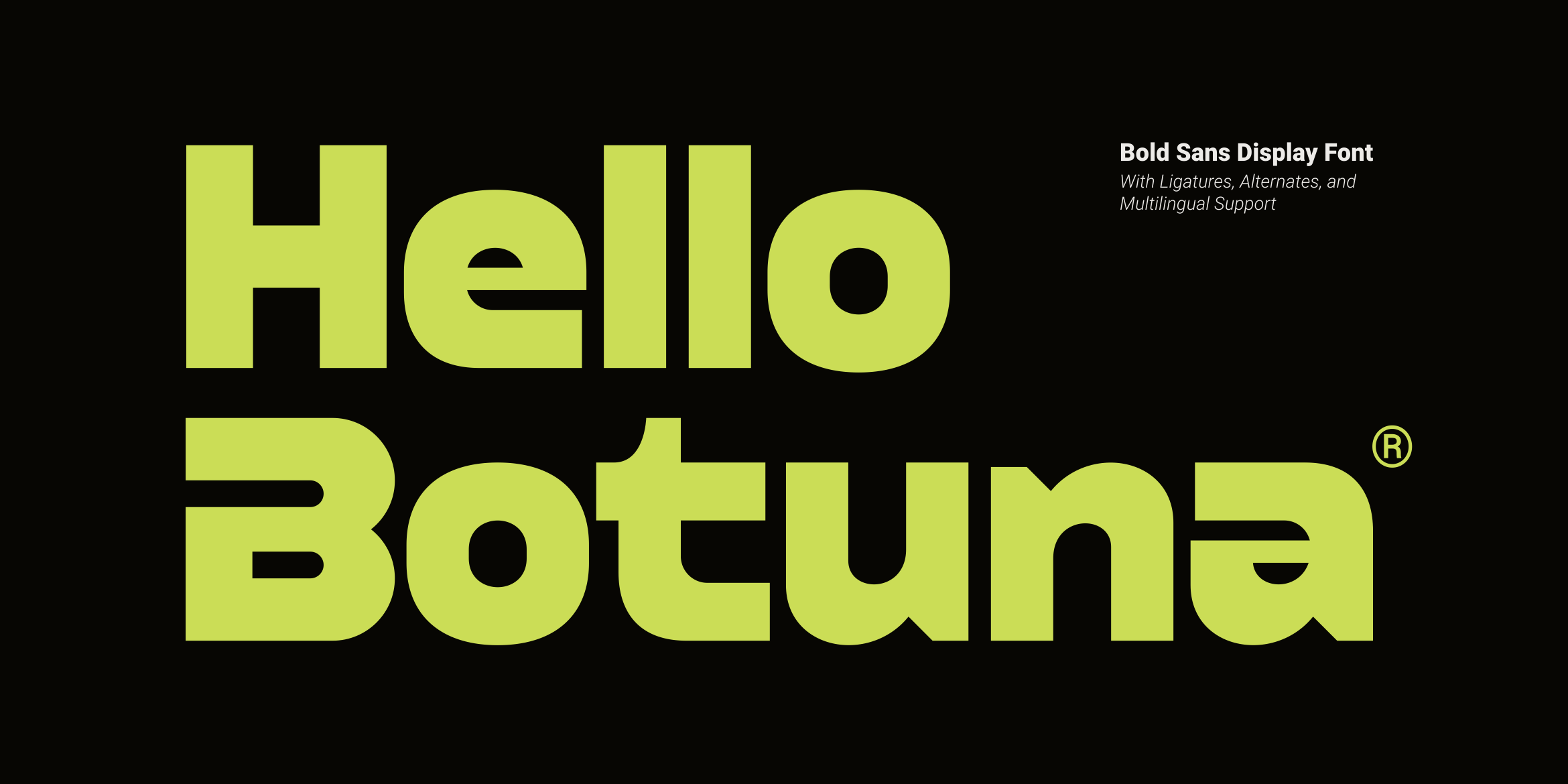
Hello Botuna Font Free Download is a clean, friendly sans-serif typeface that perfectly balances modern simplicity with approachable warmth. Ideal for branding, tech startups, UI/UX design, social media graphics, and casual editorial projects.
What makes Hello Botuna Font so exciting is its smooth curves and geometric shapes that give it a contemporary yet inviting personality. It reads well on screens and in print, making your message clear and engaging.
The Hello Botuna Font family includes Regular, Bold, and Italic styles, providing flexible options for hierarchy and emphasis in your typography.
Whether you’re crafting a tech brand identity, designing a user-friendly app interface, or creating fresh social media content, Hello Botuna Font Free Download offers clarity and friendliness. You can test it for free, but commercial use requires a license. Let Hello Botuna bring a modern, human touch to your projects.